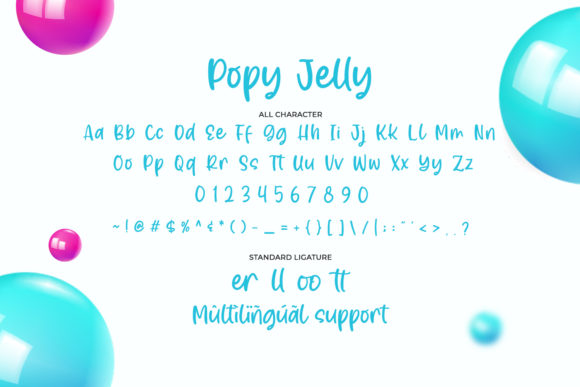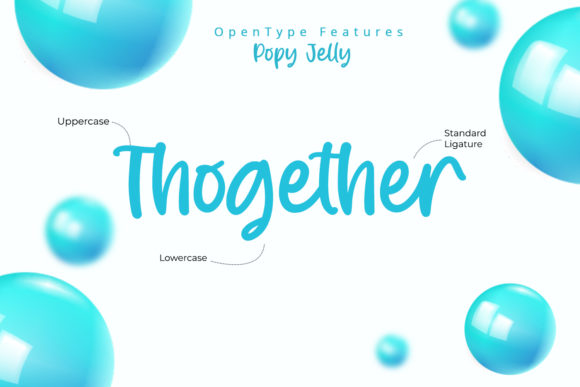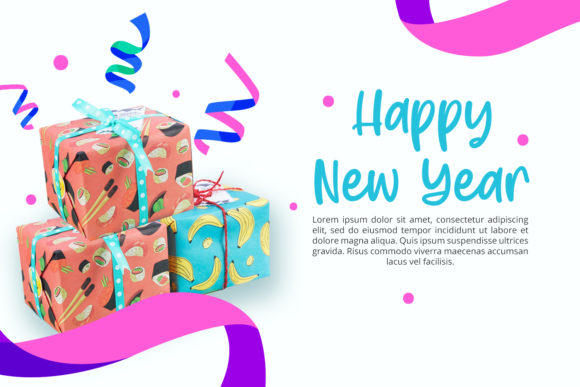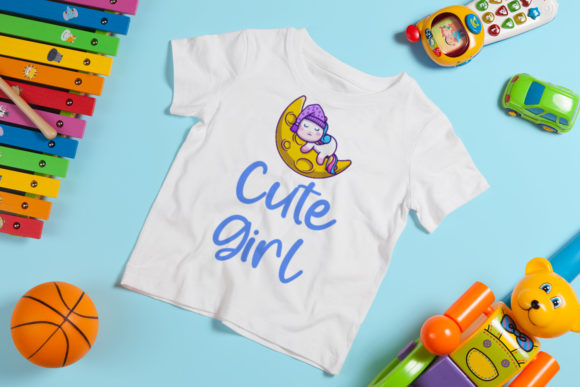
Popy Jelly Font
About Popy Jelly Font
Popy Jelly is a elegant handwritten font. It looks beautiful on a variety of designs requiring a personalized style, such as wedding invitations, thank you cards, weddings, greeting cards, logos and so on.